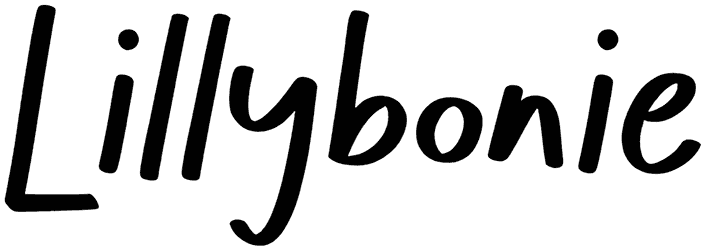
Kinlove Font
Kinlove has an innate feature to create interest in texts and can keep viewers for a few moments. This handwritten font has a childish look without numbers and can bring you joy and excitement in colorful projects.
The simplicity hidden in this script font has smoothed the unevenness of the path of message transmission and communication with the audience. So if you’re looking for the perfect font to encourage people to participate in a summer festival or school project, give Kinlove a try.
Designed by: Yusa Studio